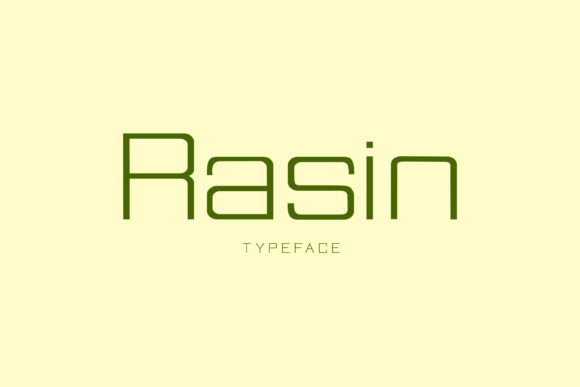
The Raisin font is an embodiment of elegance and simplicity, bestowing a captivating technical aura upon any design. Immerse yourself in the world of digital displays, where the Raisin font reigns supreme. This sans serif masterpiece, crafted by Design Stag, exudes a modern aesthetic that will elevate your projects to new heights of creativity.
Raisin's clean lines and minimalist form make it the perfect choice for those who seek to create a striking and memorable impact. Whether you're a designer, a writer, or an entrepreneur, Raisin empowers you to express your ideas with clarity and flair. Its versatility extends to a wide range of projects, from sleek logos and sophisticated brochures to captivating social media graphics.
Indulge in the boundless possibilities that Raisin offers. Let its crisp edges and subtle curves guide your creative vision, transforming your digital displays into masterpieces that captivate and inspire. Embrace the power of Raisin, and unlock the full potential of your typography today!